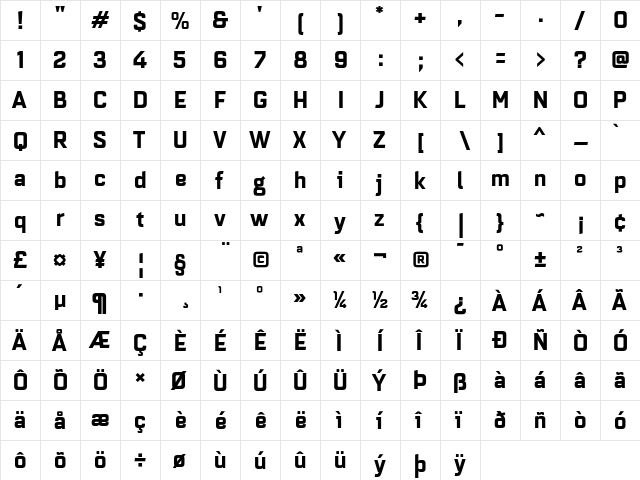
Quarca Norm Bold Font Preview
Quarca Norm Bold
Design Context for Quarca Typeface
Quarca is a composed and adaptable typeface that performs quietly and consistently across a wide range of design contexts. The heavy weight commands attention and anchors typographic hierarchies.